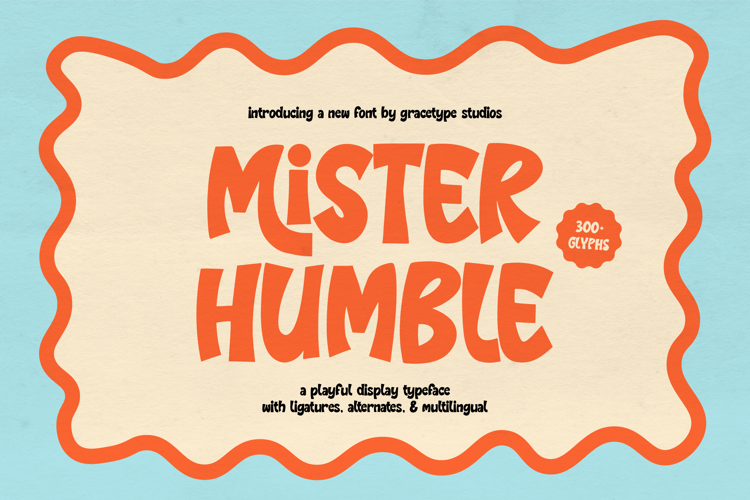
Mister Humble Font
Mister Humble | Playful Display, is suitable for any projects such as: logos, branding projects, homeware designs, product packaging, mugs, quotes, posters, shopping bags, t-shirts, book covers, name card, invitation cards, greeting cards, label, photography, watermark, special events, and all your other lovely projects that need a Hand Drawn taste.